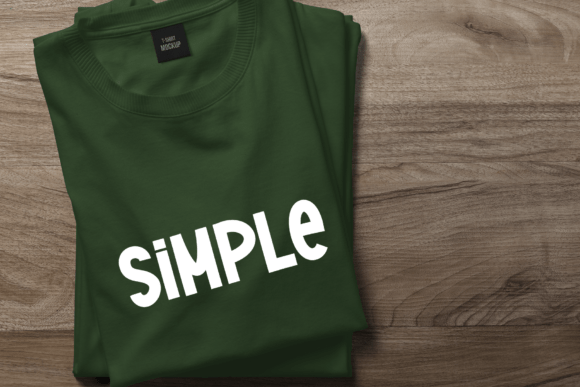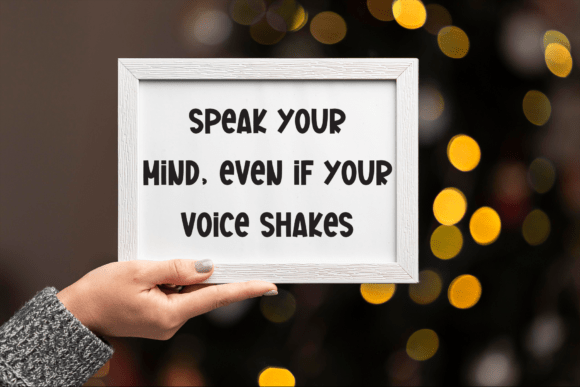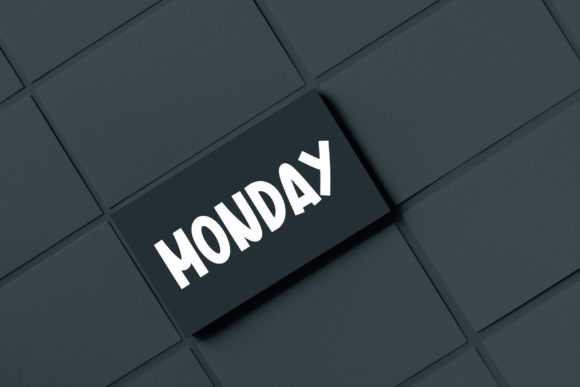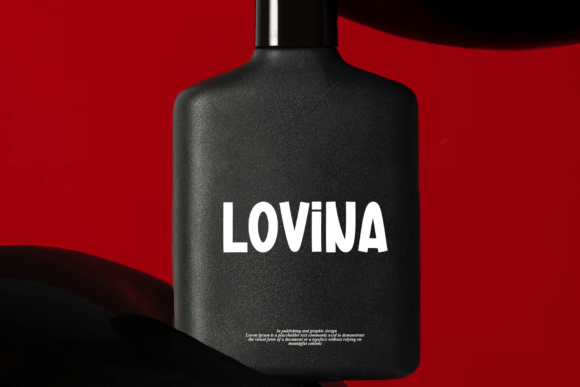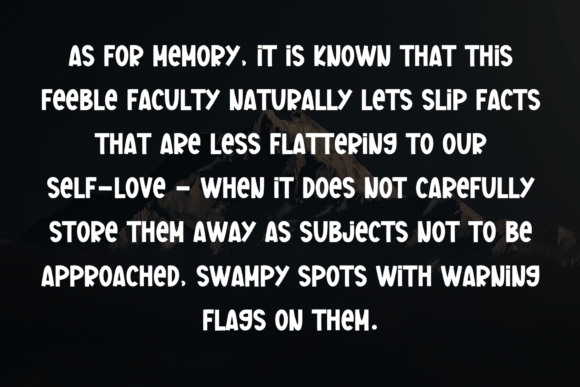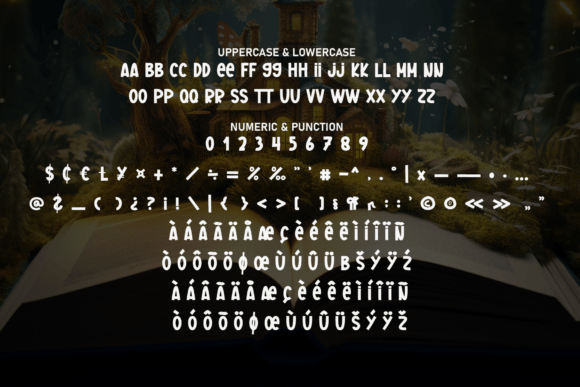
The Perfect Blend of Simplicity and Whimsy: Introducing Book Magical Font
Remember that moment when you stumbled upon the perfect font for a project, and everything just clicked? For designers, it’s a feeling we’ve all experienced at some point. It’s that moment when the words flow effortlessly, and the design comes together in a way that’s both visually appealing and meaningful. For those who crave a font that embodies the essence of modern handwritten typography, we’re excited to introduce you to Book Magical Font – a casual and neat display font that’s set to become your new go-to choice.
With its clean lines, balanced letterforms, and subtle rounded edges, Book Magical Font adds a warm and inviting touch to any design. Whether you’re working on branding, headlines, packaging, or digital content, this versatile font delivers clarity and charm in equal measure. Its crisp structure and polished finish make it a valuable asset for designers looking to elevate their projects and leave a lasting impression.
Key Features of Book Magical Font
- Font Family: Book Magical Font is a premium font family that includes 6 unique styles: Book, Italic, Bold, Bold Italic, Outline, and Fill. Each style is designed to evoke a sense of magic and wonder.
- Unique Characteristics: Book Magical Font features intricate details and ornaments that can be used to create custom designs and illustrations, adding a touch of magic to any project.
Book Magical Font Review
Overall, I think the Book Magical Font has a lot of potential. The ✨ whimsical feel to it immediately caught my eye. The design team has done a great job incorporating magical elements into the font’s design, which makes it perfect for fantasy novels, children’s books, and other projects that need a touch of magic.
- The ✨ font’s unique magical elements, such as stars, moons, and other celestial bodies, add a delightful touch to any text.
- The font’s ✨ bold and italic styles are well-designed and help to create a sense of drama and emphasis.
- The ✨ font’s legibility is good, making it easy to read even in longer blocks of text.
- ⚠️ The font’s magical elements can sometimes feel overwhelming or distracting, especially in larger blocks of text.
- ⚠️ The font’s italic style can be a bit difficult to read in certain situations, such as when the text is small or the background is dark.
- ⚠️ The font is not as versatile as some other fonts, and may not be suitable for projects that require a more neutral or formal tone.
In conclusion, while the Book Magical Font has some limitations, its unique design and whimsical feel make it a great choice for certain types of projects. With a bit of caution and consideration for its limitations, this font can be a valuable addition to any designer’s toolkit.
The Book Magical Font is perfect for:
- Creating magical and mystical designs.
- Adding a touch of whimsy to your designs.
- Using in fantasy-themed projects.